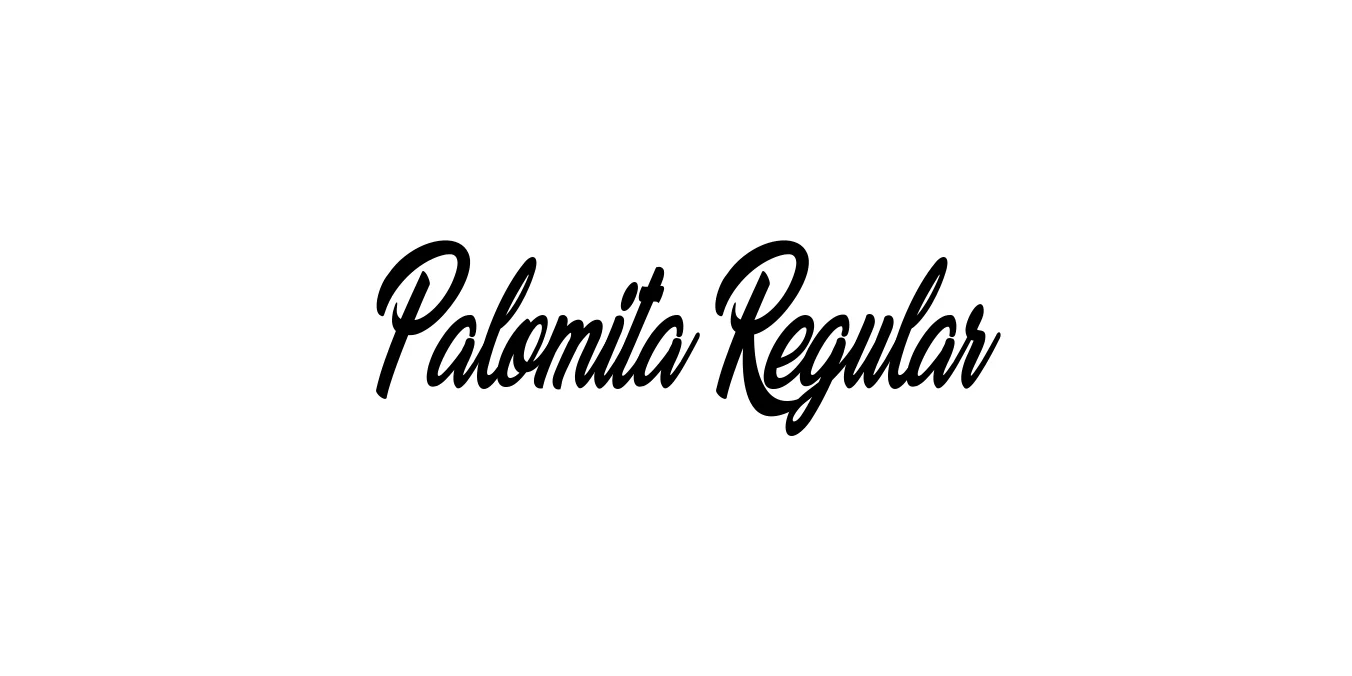
Palomita Regular
Designed by Alejandro Paul
Palomita Regular is a distinctive brush script typeface designed by the renowned Alejandro Paul and published via the Sudtipos foundry. It is deeply inspired by the casual, hand-lettered signs found in traditional markets and grocery stores, specifically echoing the aesthetic of the "fileteado" style prominent in Buenos Aires. The font features a rhythmic, organic flow with rounded strokes and a friendly, approachable weight that makes it stand out in display settings.
This font serves as a bridge between vintage manual lettering and modern digital typography, offering a high degree of warmth and personality. Palomita Regular is widely celebrated for its ability to add a human touch to digital layouts, making it a favorite for creative professionals working on packaging and boutique branding. Its informal yet legible structure ensures that it remains functional across both print and digital mediums while retaining its handcrafted charm.
Palomita Regular Best Uses
Perfect for organic food labels and artisanal beverage packaging.
Ideal for boutique shop identities and creative personal logos.
Great for social media graphics and promotional posters needing a friendly vibe.